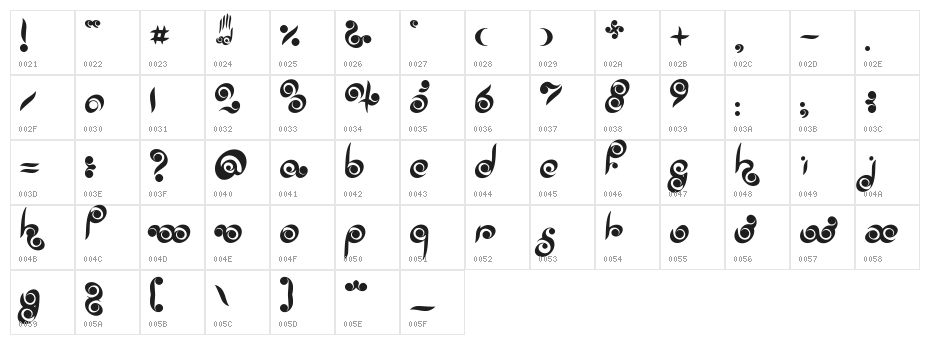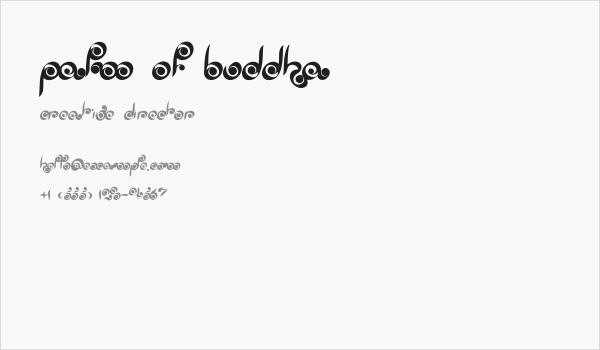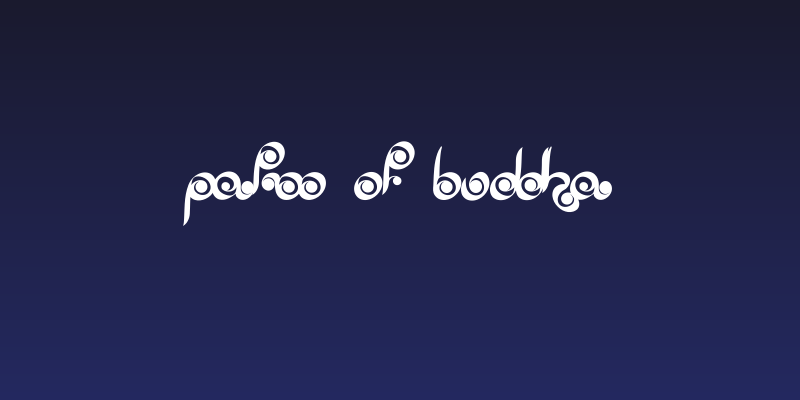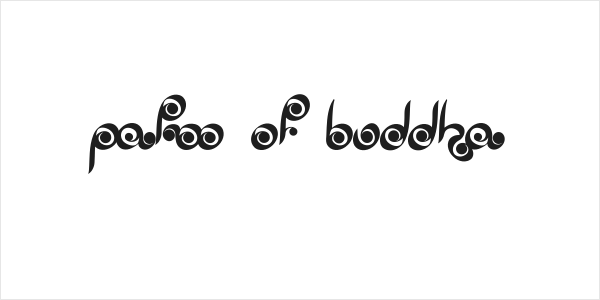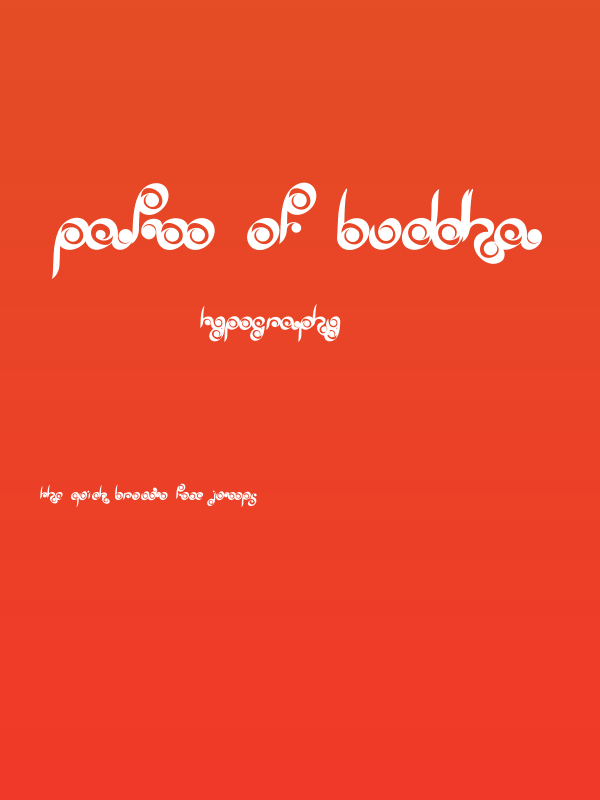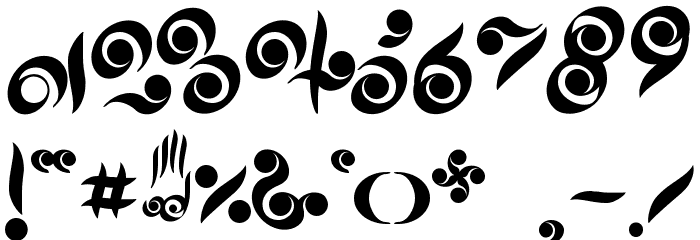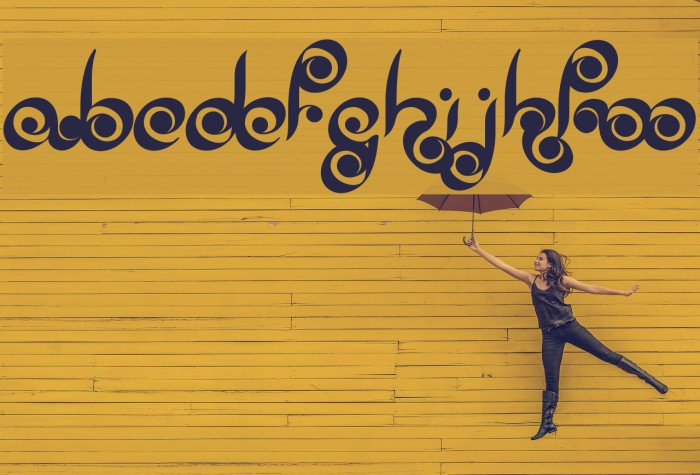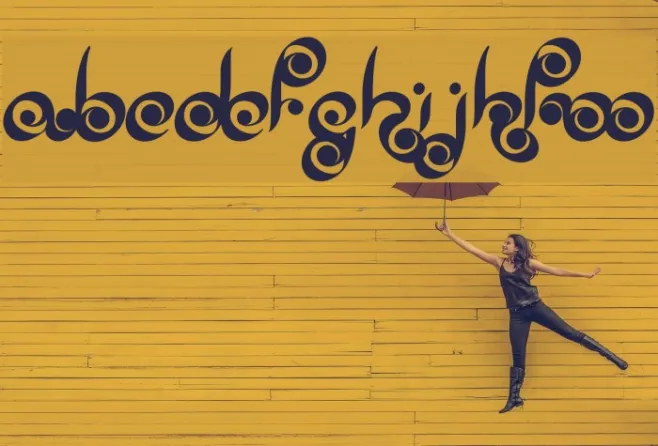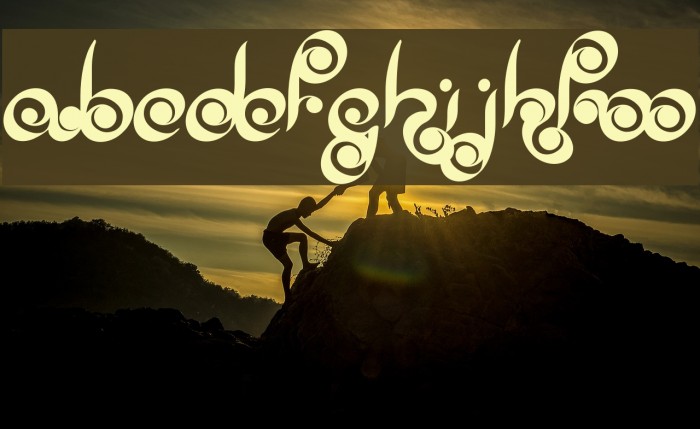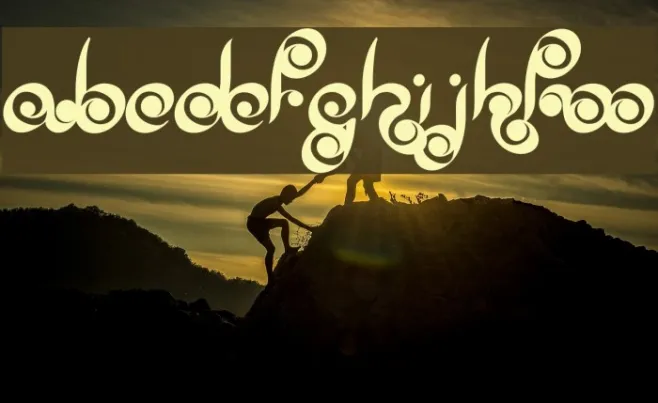
Palm of Buddha Font
Palm of Buddha Description
This font features a highly decorative and artistic style, characterized by its swirling, spiral-like elements that give it a unique and exotic appearance. The letters are bold and have a strong presence, with each character incorporating intricate curves and loops that create a sense of movement and fluidity. The design is reminiscent of traditional calligraphy with a modern twist, making it both eye-catching and sophisticated. The numbers and special characters follow the same ornate style, ensuring consistency across the entire typeface. This font is ideal for projects that require a touch of elegance and creativity.
| Use Case | Logos, Posters, Invitations |
| Proposed Projects | Ideal for artistic projects, branding, posters, and invitations that require a unique and elegant touch. |